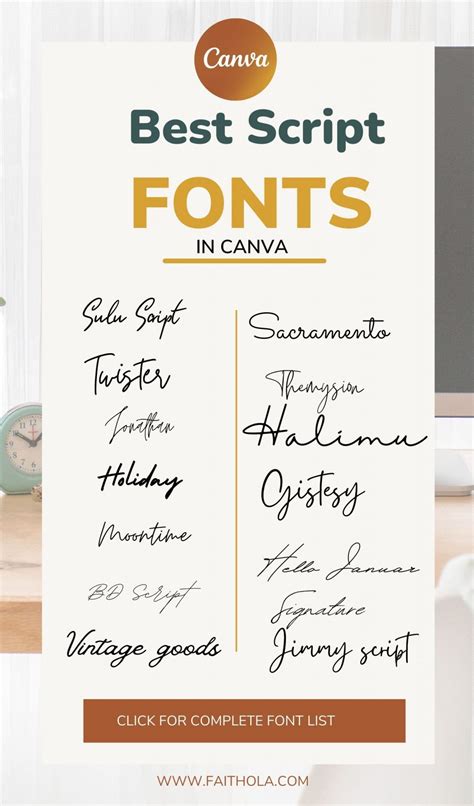
80+ Best Canva Fonts Ultimate Canva Font Guide for Choosing Fonts
Best Script Canva Fonts. Classic brush style calligraphy font with elegant and. Web 60 free calligraphy fonts and lettering fonts to download.
Classic brush style calligraphy font with elegant and. Web 60 free calligraphy fonts and lettering fonts to download.